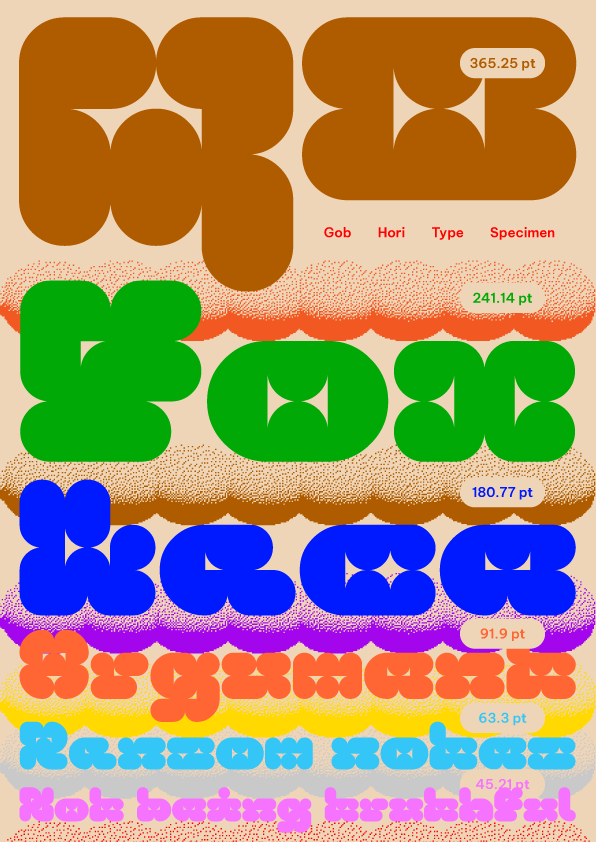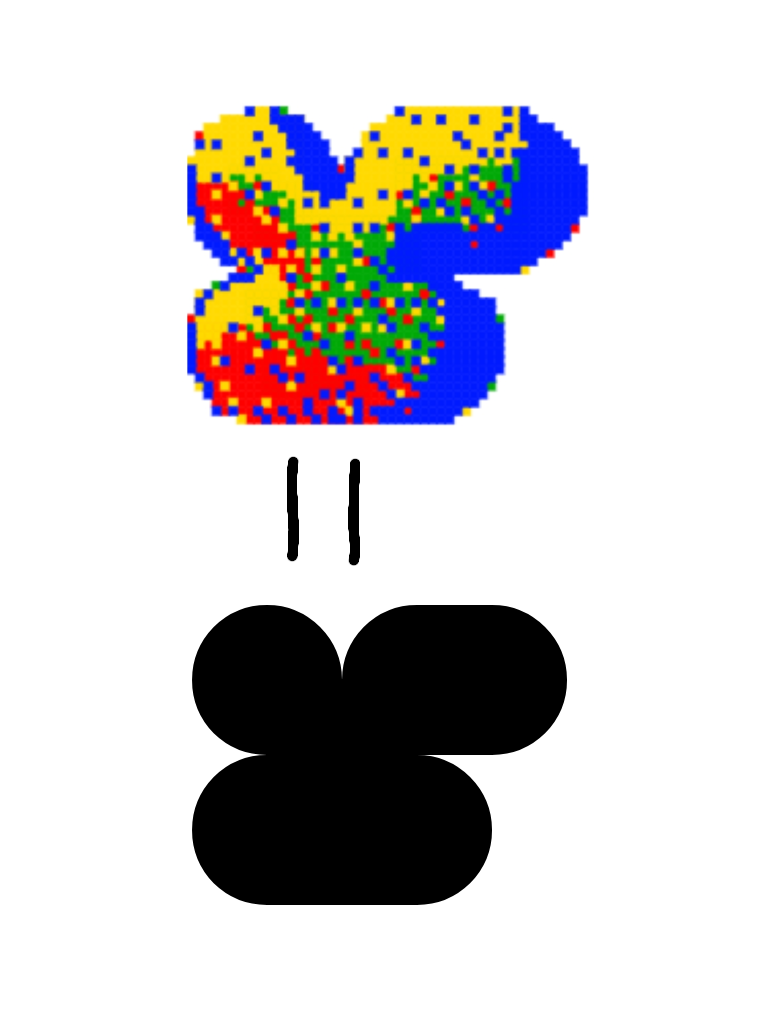
• Gob (a portmanteau of ‘gastric’ and ‘blob’) is a playful display font family with knobbly silhouettes, not unlike a digestive tract. What began as an inverse typographic experiment evolved into multiple styles (Verti, Hori, and Uni with a set of alternates) through stretching, squeezing, and reworking its stroke segments. Later, a FontStruct colour font competition pushed Gob further, spawning the pixelated, shadow-layered Pixi variation.
@faux_icing, and the alternative version of the letter "r" inspired by Gob Pixi?
@NekoFonts: Sharp eyes! I modified the 'r' over here after working on Gob Pixi. I thought it could use a little more white space in the middle, thus the change.